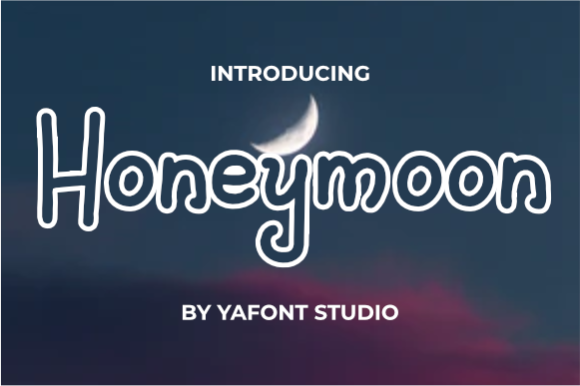
Honeymoon Font
Honeymoon is a lovely and timeless handwritten font. It is the best choice for creating eye catching logos, branding and quotes. A little bit quirky, this font looks incredibly adept on a wide variety of contexts!